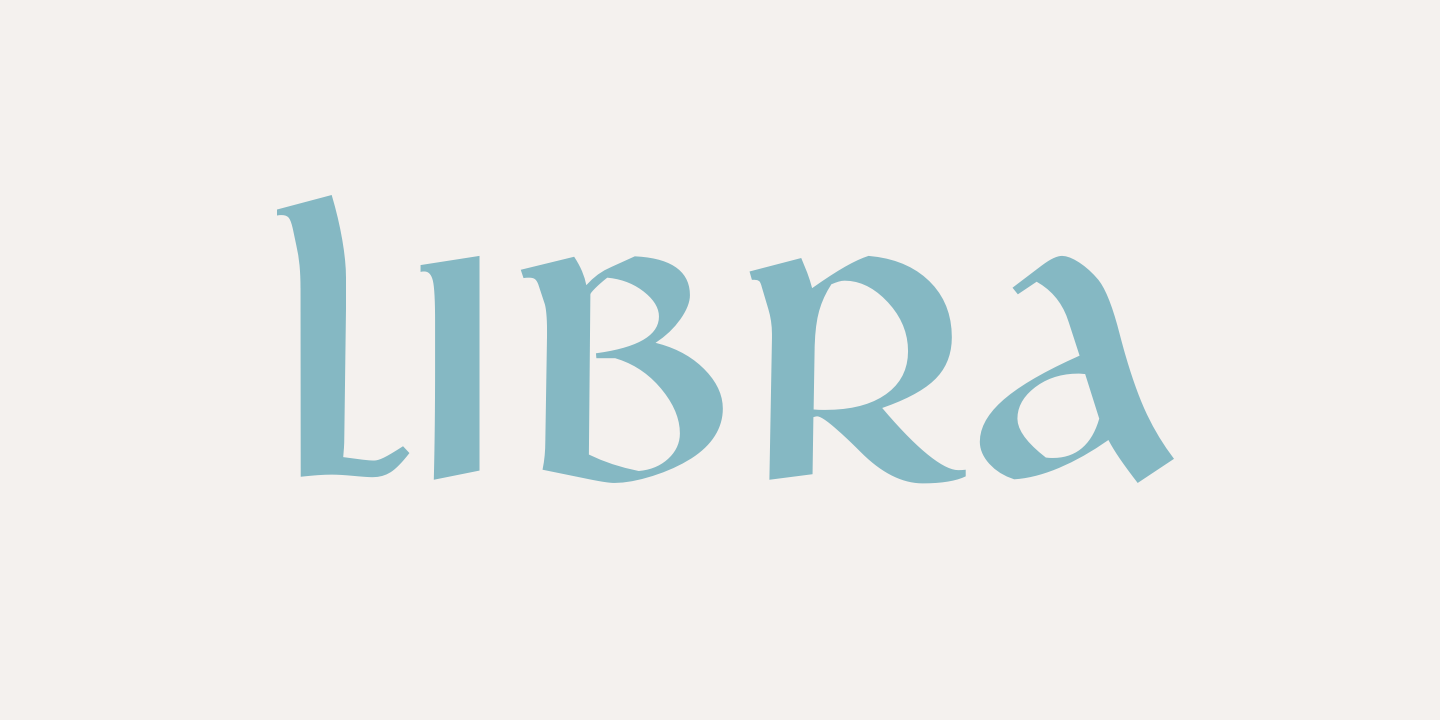
Libra Font is perfect for law firm branding, financial services identity, legal document typography, corporate presentations, banking materials, professional consulting logos, judicial system graphics, and balanced editorial layouts. This harmonious typeface excels in projects requiring equilibrium and professional authority where fairness meets sophisticated design principles.
What makes Libra Font exciting is its perfect embodiment of balance and justice through meticulously proportioned letterforms that create visual harmony and convey trustworthiness. The font features symmetrical characters with carefully balanced strokes and elegant proportions that evoke the scales of justice while maintaining contemporary professional appeal. Its balanced character makes it ideal for organizations seeking to communicate fairness, stability, and unwavering ethical standards.
Libra Font family includes comprehensive weight variations and stylistic alternatives that provide extensive flexibility for professional applications requiring visual hierarchy. The family typically offers light, regular, medium, semibold, bold, and heavy weights, along with corresponding italic styles and small caps that enable sophisticated legal and financial document design.
Whether you're developing legal practice branding, creating financial institution materials, or designing professional service marketing, Libra Font Free Download delivers exceptional credibility across all professional applications. This font's balanced aesthetic and authoritative presence make it perfect for organizations where trust, accuracy, and professional integrity are fundamental to success.
The precisely calibrated letterforms and optimal character spacing of Libra Font ensure outstanding readability while projecting unwavering professionalism at any size. Its harmonious design and ethical symbolism create lasting impressions that resonate with clients seeking reliable professional services. Download Libra Font today and establish your brand's commitment to balance and justice with this professionally balanced typeface that perfectly represents fairness and reliability.